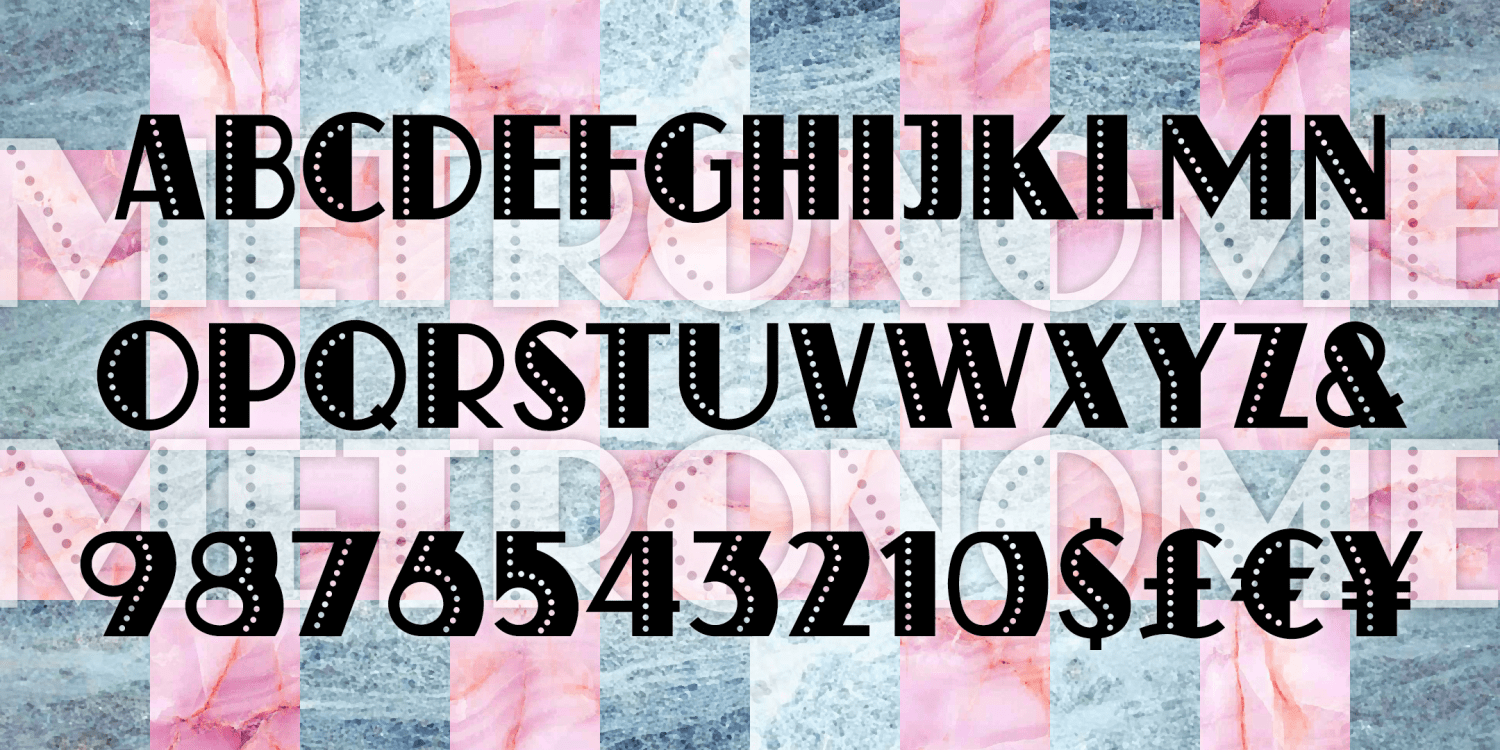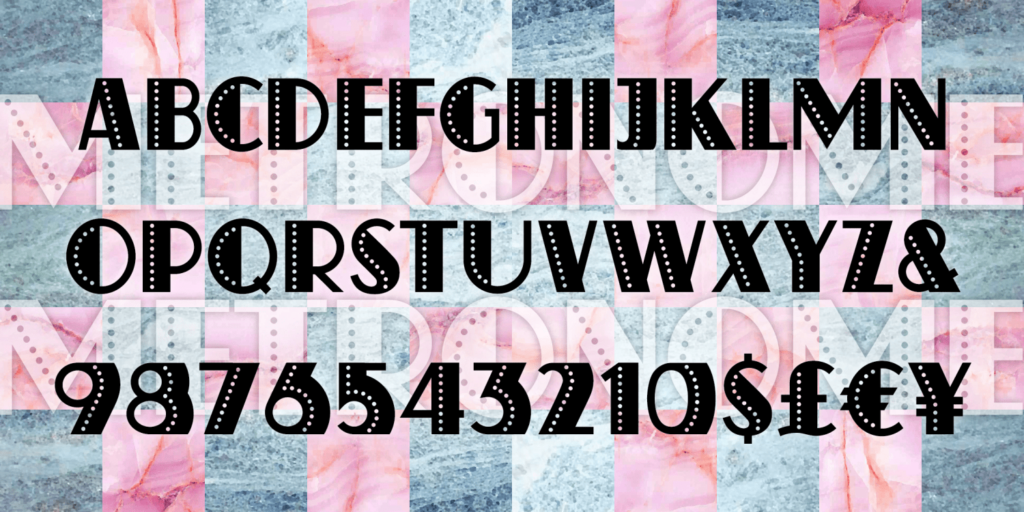
Metronome Regular
About Metronome Regular
METRONOME is a new Art Deco font inspired by vintage examples. Using my earlier ATLAS revival fonts as a starting point, I swapped out the pinstripe for a line of pearls and reduced the width of each letter. Bold but elegant.